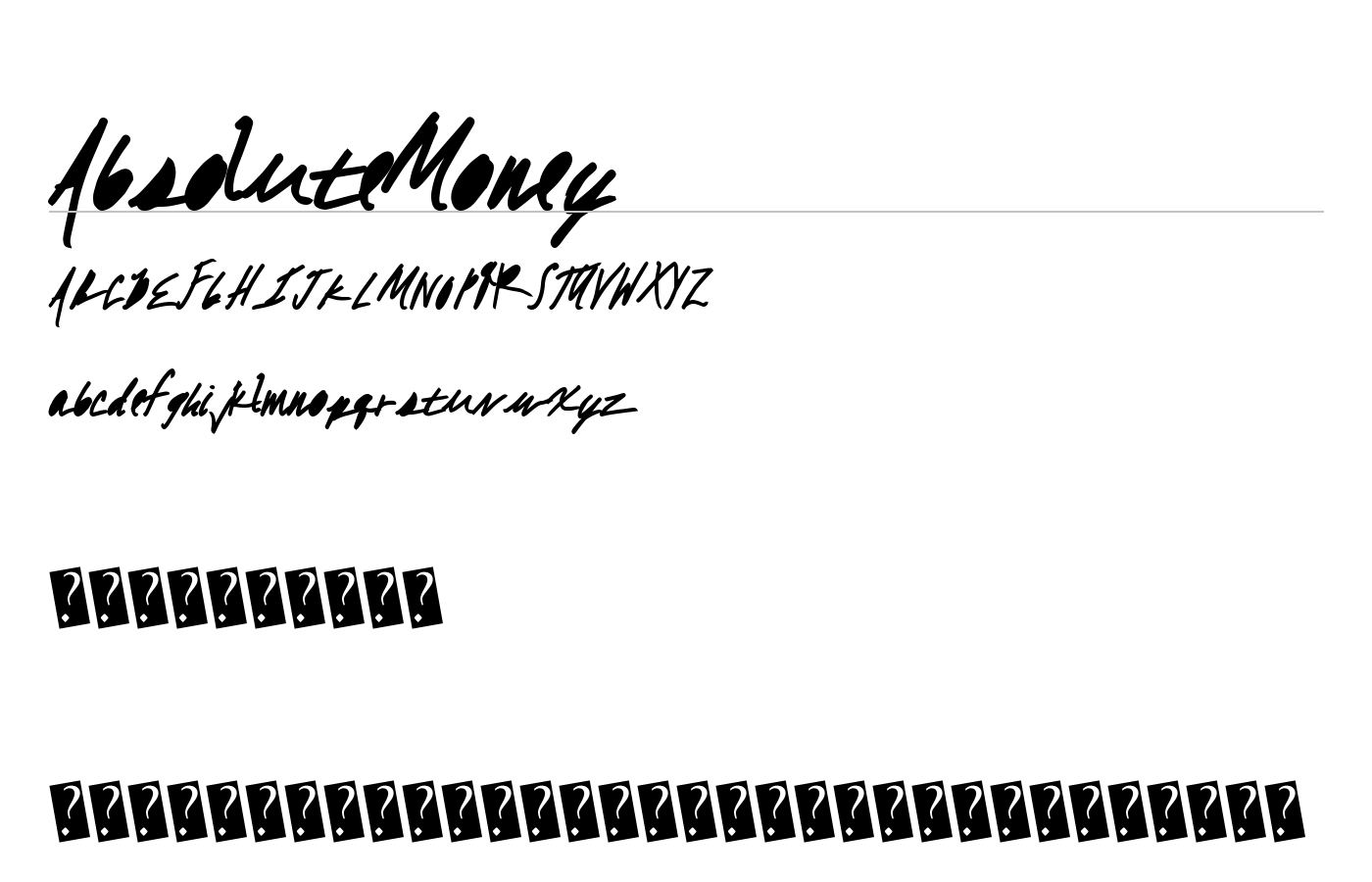
AbsoluteMoney is a bold, expressive script font characterized by swift, energetic strokes that mimic dynamic handwriting with a slightly chaotic feel. Its tall, narrow letterforms and sharp angles convey a sense of urgency and creativity, making it ideal for edgy branding, fashion, or artistic projects seeking a distinctive, modern flair. This font works best in attention-grabbing headlines, logos, or posters where personality and impact are key.
AbsoluteMoney Font
About AbsoluteMoney Font